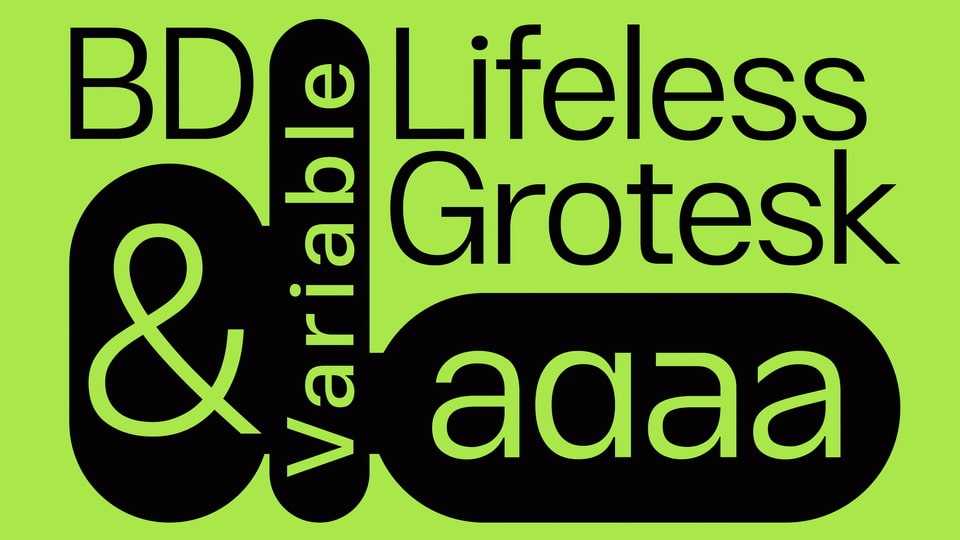
BD Lifeless Grotesk Font Family › Fontesk – Download Grátis
Download BD Lifeless Grotesk font, an interpretation on a neutral, boring, grotesque sans-serif typeface crafted for clarity, simplicity, and universal appeal. This is a timeless typeface that effortlessly blends into any design context, offering a clean and modern aesthetic without stealing the spotlight.